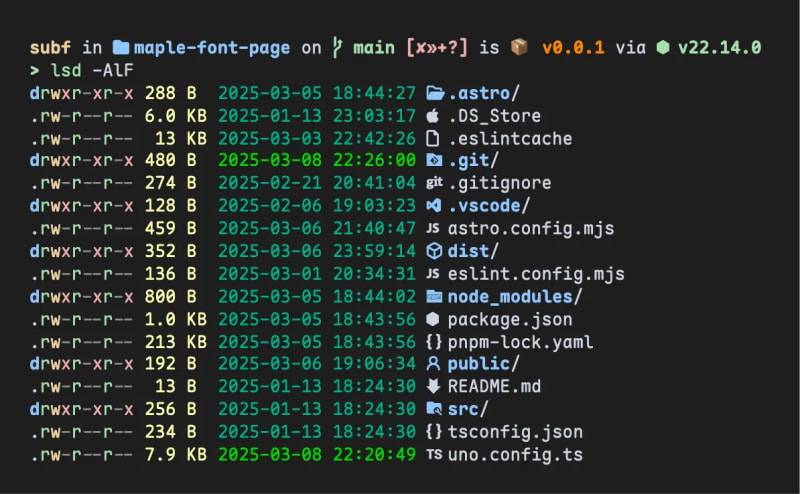
Maple Mono is an open source monospace font designed specifically for programmers. It features variable font weights, rounded corners, cursive-style italics, extensive ligatures, built-in Nerd Font icon support, and a 2:1 monospace ratio for Chinese and English characters. The font offers customizable OpenType features through JSON configuration, allowing developers to create their own variants. Created to address shortcomings in existing coding fonts like JetBrains Mono, Fira Code, and Victor Mono, it emphasizes readability and aesthetic appeal for coding workflows.